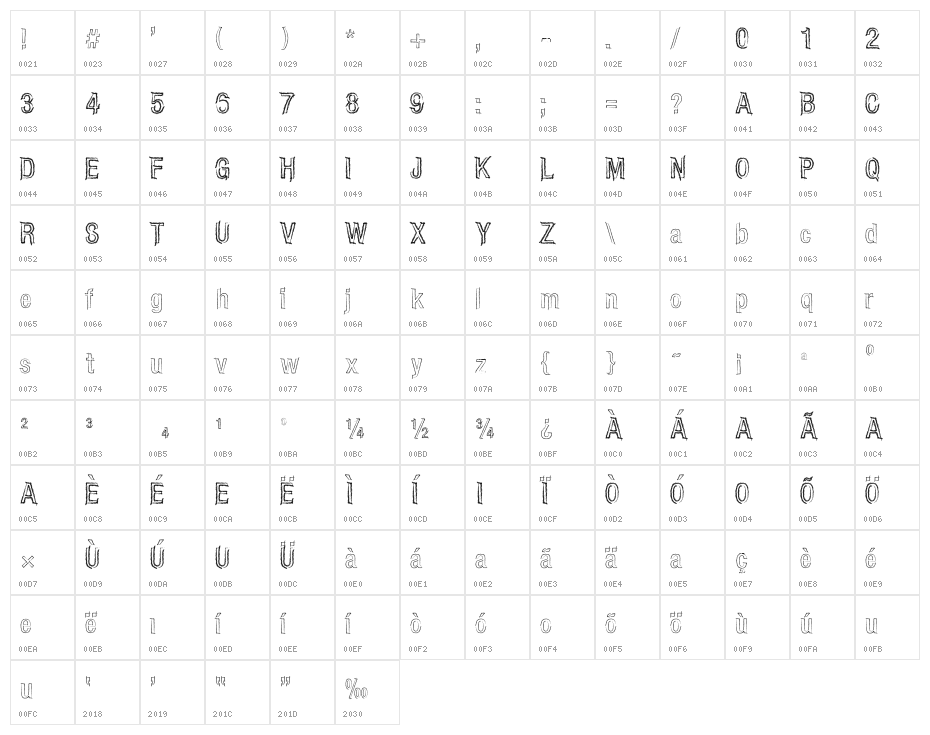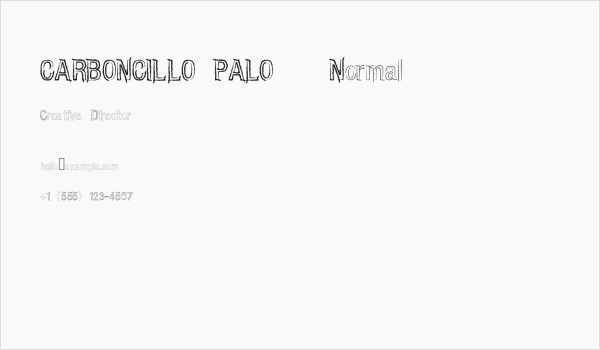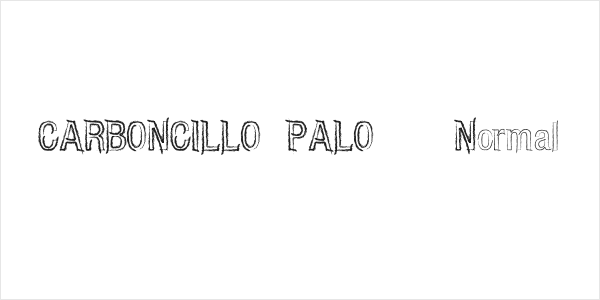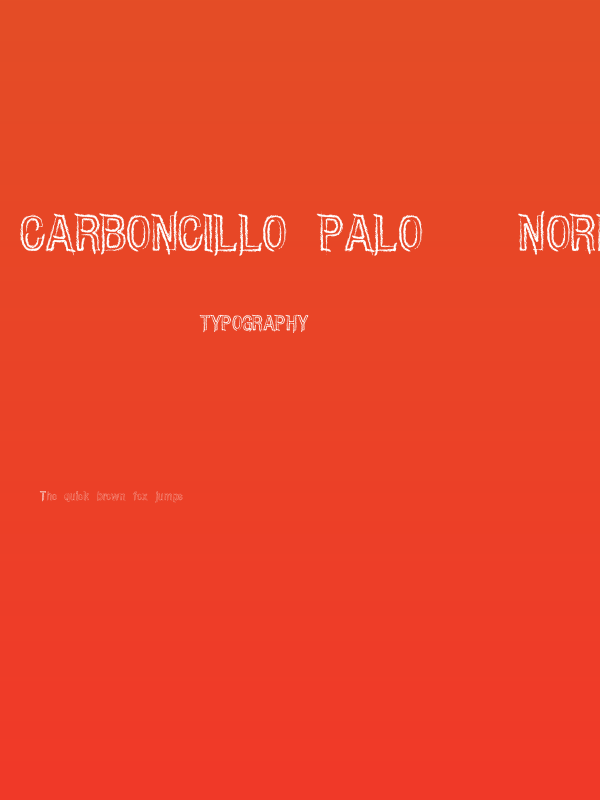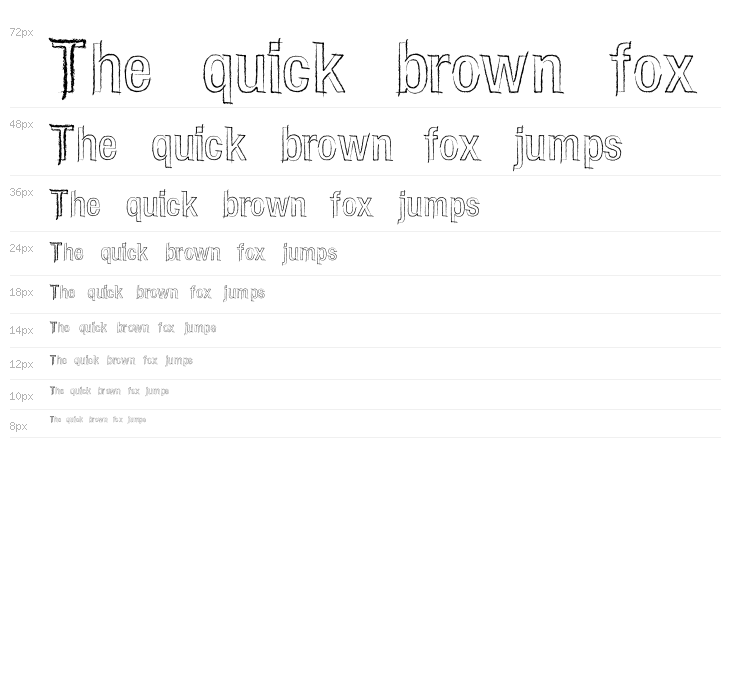
CARBONCILLO PALO Normal Font
CARBONCILLO PALO Normal Description
This font features a textured, hand-drawn appearance, reminiscent of charcoal or pencil sketches. The uppercase and lowercase letters exhibit a playful yet sophisticated style, with slightly irregular edges that add a unique, artistic flair. The numerals and special characters maintain this sketch-like quality, providing a cohesive look across all glyphs. The font's design is both modern and rustic, making it versatile for various creative applications. Its distinctive texture and organic feel make it stand out, offering a tactile visual experience.
| Overall Style | Artistic, Rustic |
| Proposed Projects | Ideal for artistic projects, branding, packaging, posters, and invitations that require a creative and organic touch. |